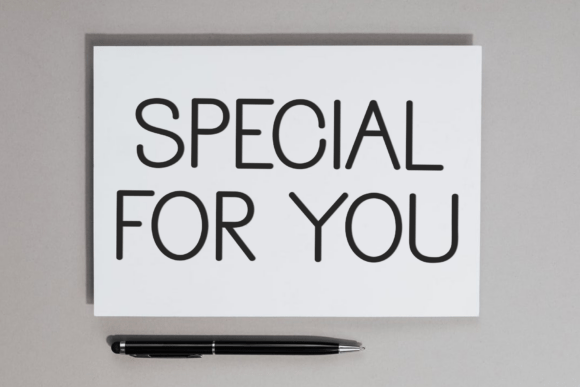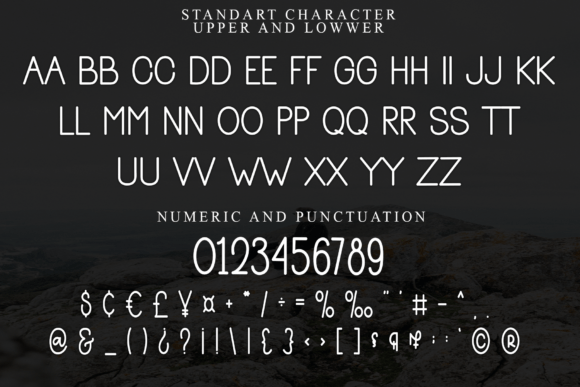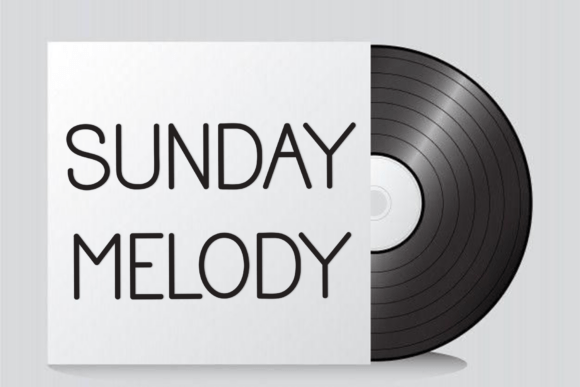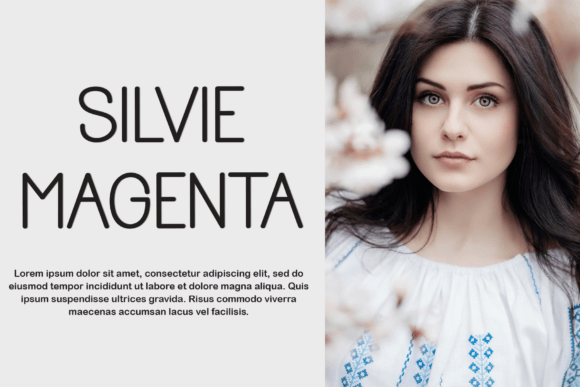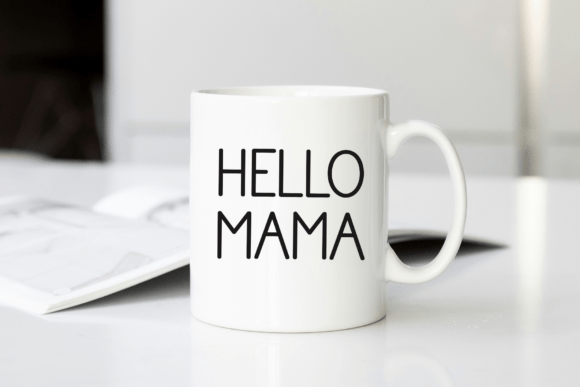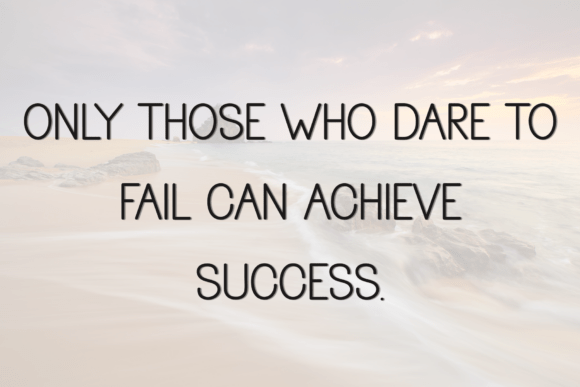
Introducing the Awesome Teacher Font: Elevate Your Designs with a Unique Touch
In the world of design, typography plays a crucial role in capturing the essence of a message. A font can make or break the visual appeal of a project, and that’s where the Awesome Teacher font comes in – a beautiful, eye-catching typeface that adds a soft, unique touch to any design. With its distinctive strokes and versatile nature, this font is set to become a favorite among designers, crafters, and creative enthusiasts.
A Font that Stands Out
The Awesome Teacher font boasts a special character that sets it apart from more traditional typefaces. Its unique strokes and curves give it a distinctive look that’s both visually appealing and meaningful. Whether you’re working on a design project, crafting a handmade card, or creating digital content, this font is sure to make your work stand out.
One of the key benefits of the Awesome Teacher font is its versatility. With a wide range of characters, you can use it to create unique and eye-catching designs for various applications. From handmade crafts to digital products, this font is perfect for:
• Design projects: Use the Awesome Teacher font to add a personal touch to your designs, making them more engaging and memorable.
• Crafts: Add a unique touch to your handmade crafts, such as cards, gift tags, and scrapbooking pages.
• Digital products: Use the font to create visually appealing digital products, such as printable art, planners, and social media graphics.
Compatibility and Ease of Use
Enhance Your Designs with a Natural Font Style
The natural font style of Awesome Teacher makes it an ideal choice for a wide range of products. From stationery and gift tags to digital art and social media graphics, this font will enhance your designs and make them appealing to a broad audience. Its unique touch will add a personal and creative element to your work, setting it apart from more generic designs.
Unlock Endless Creative Possibilities
With the Awesome Teacher font, the creative possibilities are endless. You can use it to:
• Create stunning visual content for social media and blogs.
• Design beautiful stationery, including invitations, greeting cards, and gift tags.
• Develop unique digital products, such as printable art and planners.
• Add a personal touch to your handmade crafts and DIY projects.